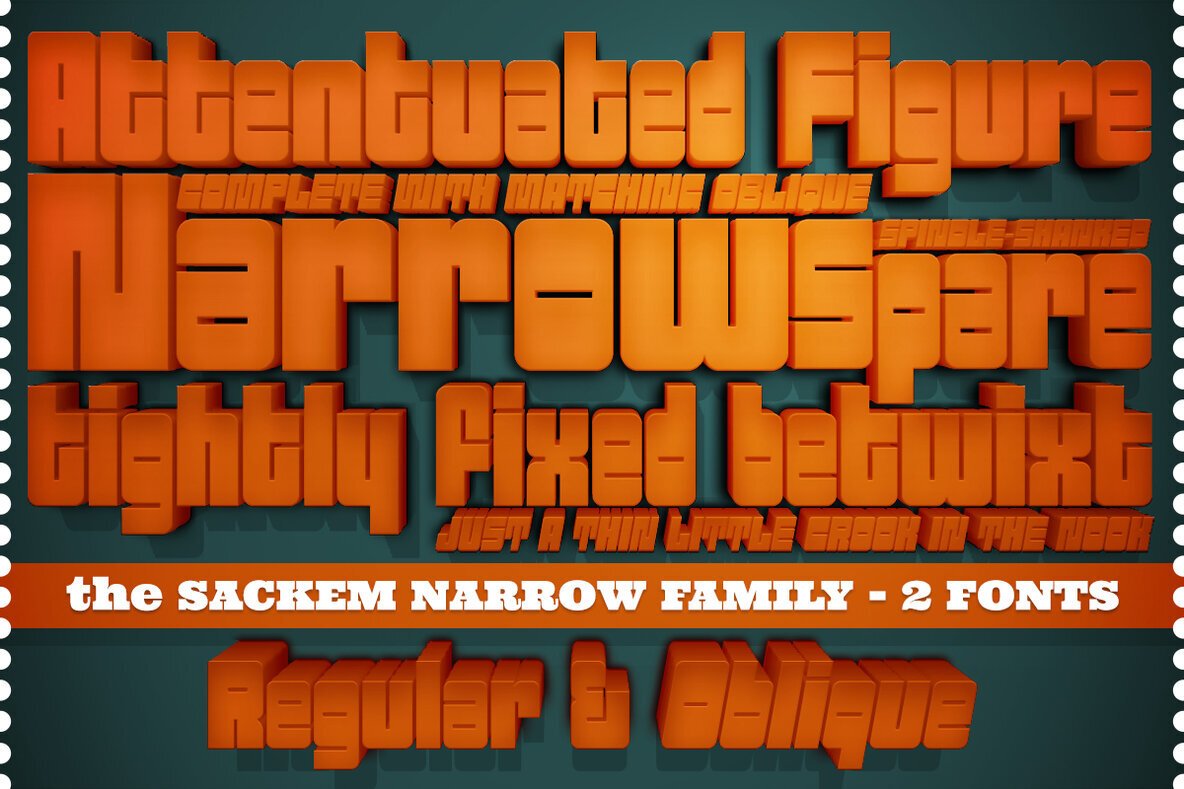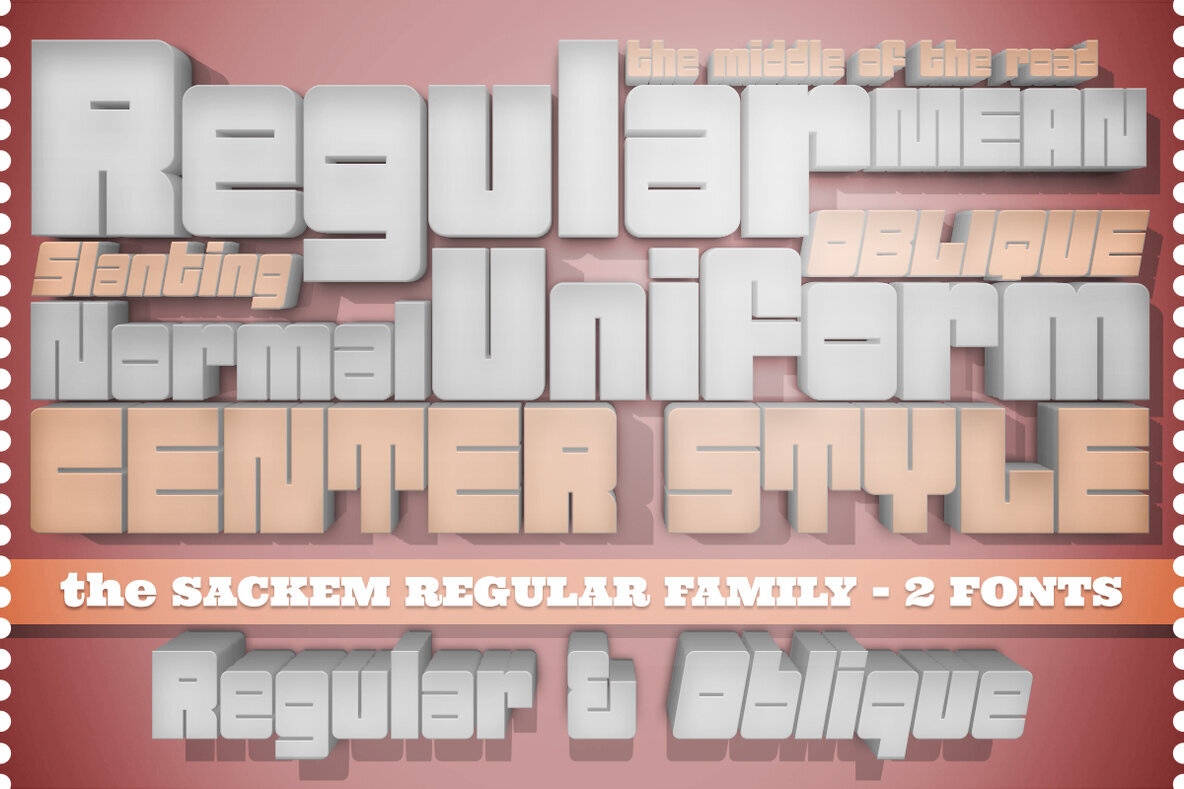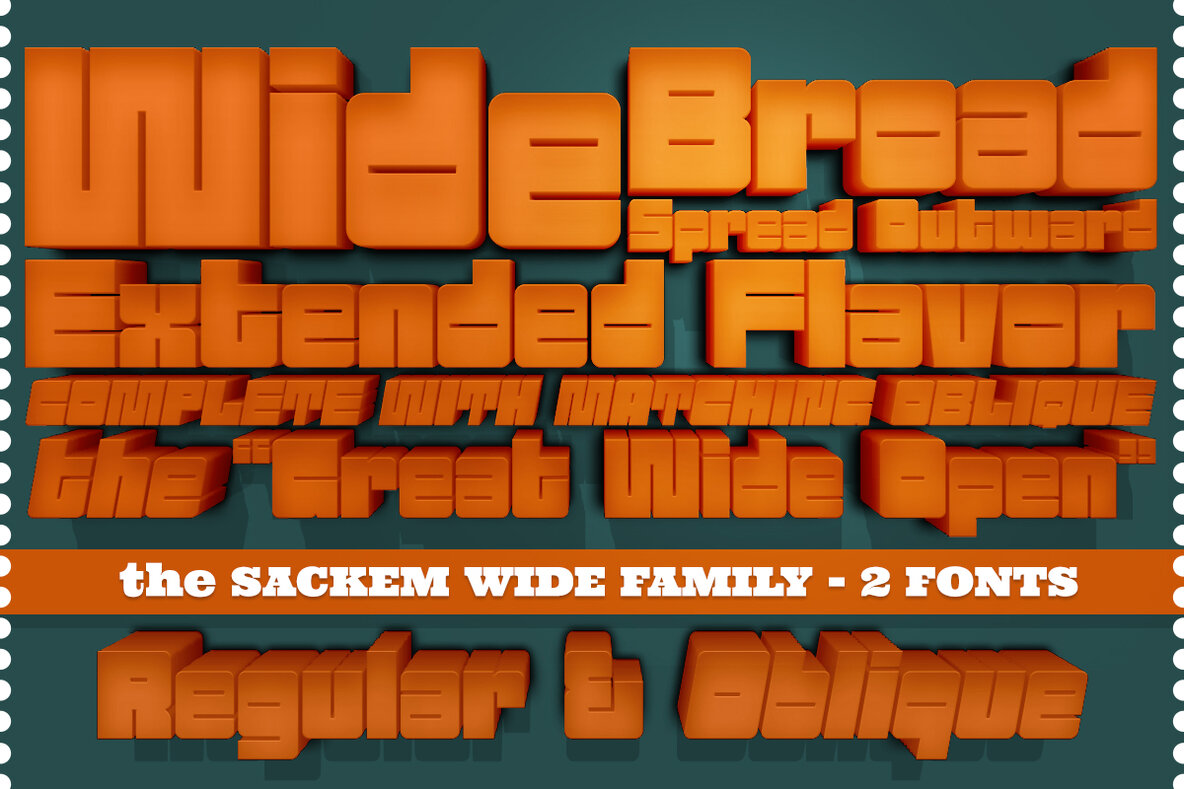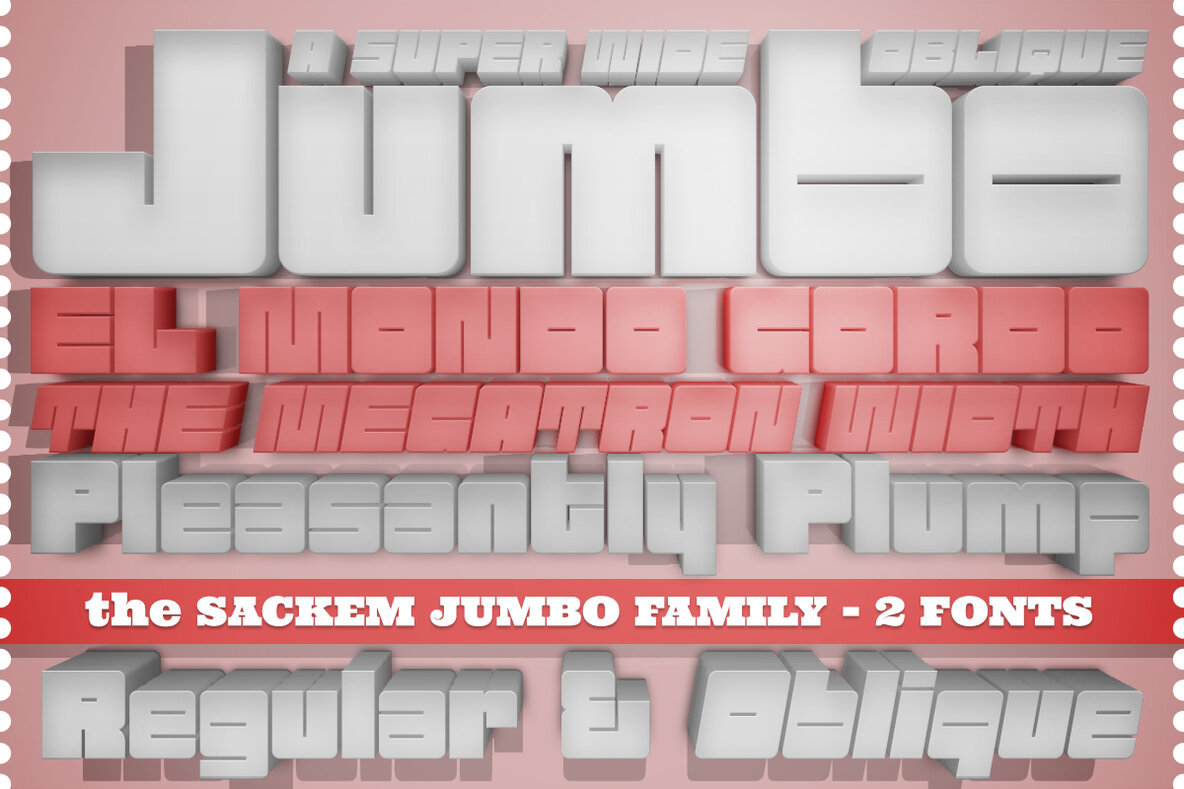
Sackem Font
Experience the bold character and geometric precision of this heavyweight typestyle, featuring tiny counters that add a distinctive charm. Originally inspired by the digitization of the Benman Jumbo film typeface by Lettergraphics, this design has been transformed into a versatile type family. Its mechanical aesthetics pay homage to the roots of geometric design while introducing a playful range of widths and obliques.
From the sleek and narrow "Slim" styles to the robust and expansive "Jumbo" variations, this typeface family offers a multitude of design possibilities. It’s perfect for projects that need a strong visual impact, allowing designers to experiment with proportions and alignments. Its adaptability makes it an excellent choice for various applications, ensuring your typographic compositions stand out with confidence.